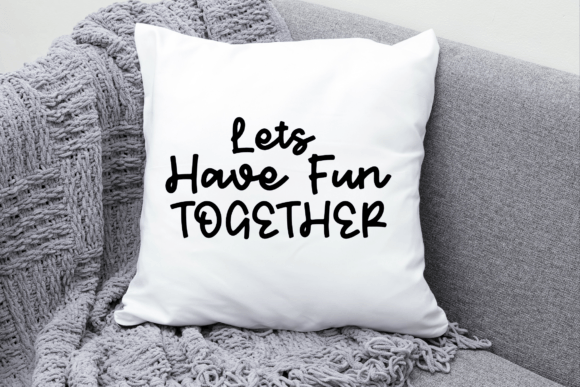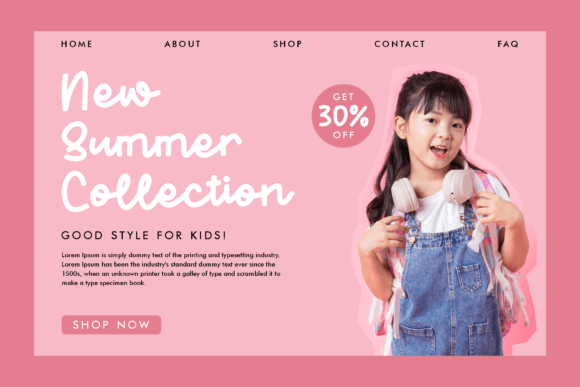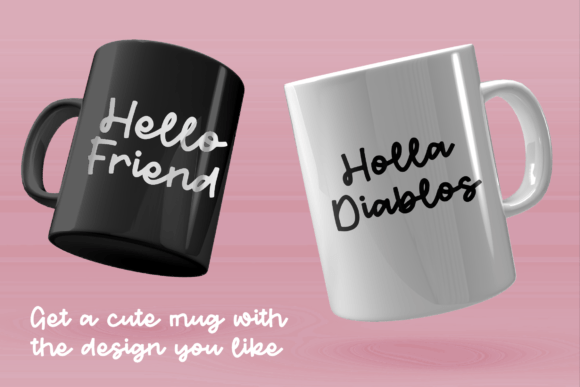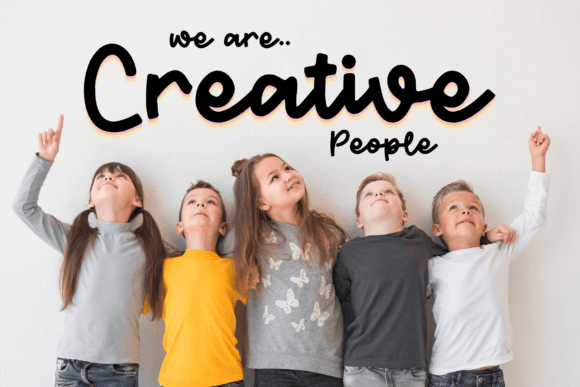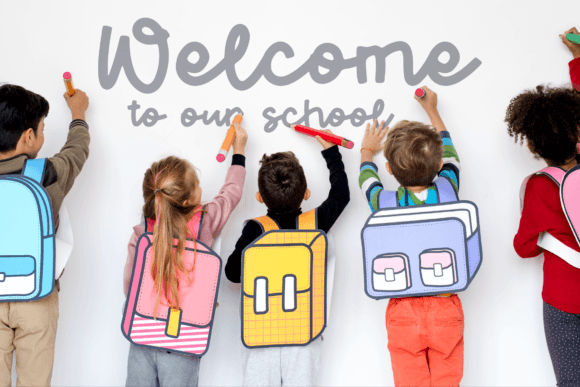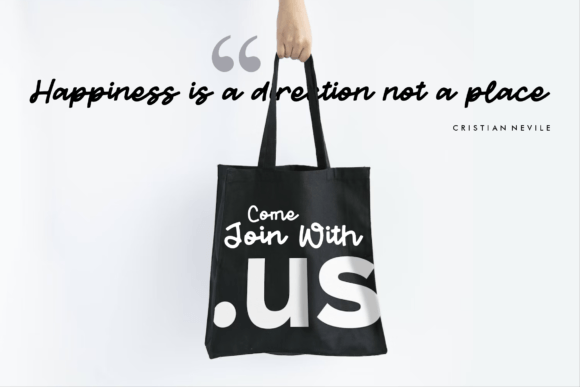
Introduction to Hougly Waltern Font
Have you ever stumbled upon a font that perfectly captures the essence of your creative vision? For designers, finding that perfect script font can be a game-changer. It’s the moment when everything clicks, and your project comes together in a beautiful, cohesive way. For those who have experienced this magic, you know how valuable it is to have a reliable design resource like the Hougly Waltern Font.
This quirky script font is a treasure trove of creative possibilities, suitable for a wide range of projects, from logos and branding to homeware designs, product packaging, and even book covers. With its unique charm, Hougly Waltern Font is perfect for designers who want to add a touch of elegance and personality to their work.
Key Features of Hougly Waltern Font
- Features a unique and modern design style, perfect for adding a touch of elegance to any project
- Designed to be versatile and adaptable, making it easy to use in a variety of creative projects
Honest Review: Hougly Waltern Font
One of the standout features of the Hougly Waltern Font is its high quality and unique design. The font is perfect for creative projects that require a touch of elegance and sophistication. I’ve used it for various designs, and it always looks amazing.
What works well: ✨ The font’s transparent background makes it easy to use on any design, and the range of styles and weights available means I can always find the perfect fit for my project.
What doesn’t work well: ⚠️ While the font is high quality, it’s not as versatile as some other fonts I’ve used. It’s best suited for formal and elegant designs, and may not be the best choice for more playful or casual projects.
Overall impression: I’m really impressed with the Hougly Waltern Font, and I would definitely recommend it to designers looking for a high-quality, free download. It’s a great addition to any design library.
- High quality and unique design
- Range of styles and weights available
- Not as versatile as some other fonts
- Best suited for formal and elegant designs
For getting the most out of the Hougly Waltern Font, use it for creative projects that require a unique and eye-catching font. Some common use cases include designing logos, business cards, posters, and social media graphics. The Hougly Waltern Font is a versatile design resource that can be used in a variety of contexts.
Is the Hougly Waltern Font suitable for high-quality design projects?
Yes, the Hougly Waltern Font is designed to be a high-quality design resource, making it suitable for a wide range of creative projects, including logos, branding, and other design materials. Its transparent background and crisp typography ensure that it will look great on any design surface.